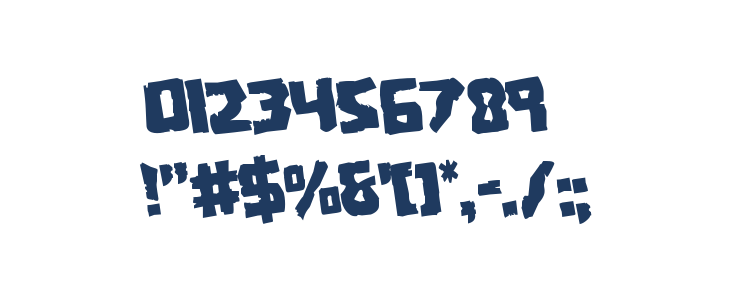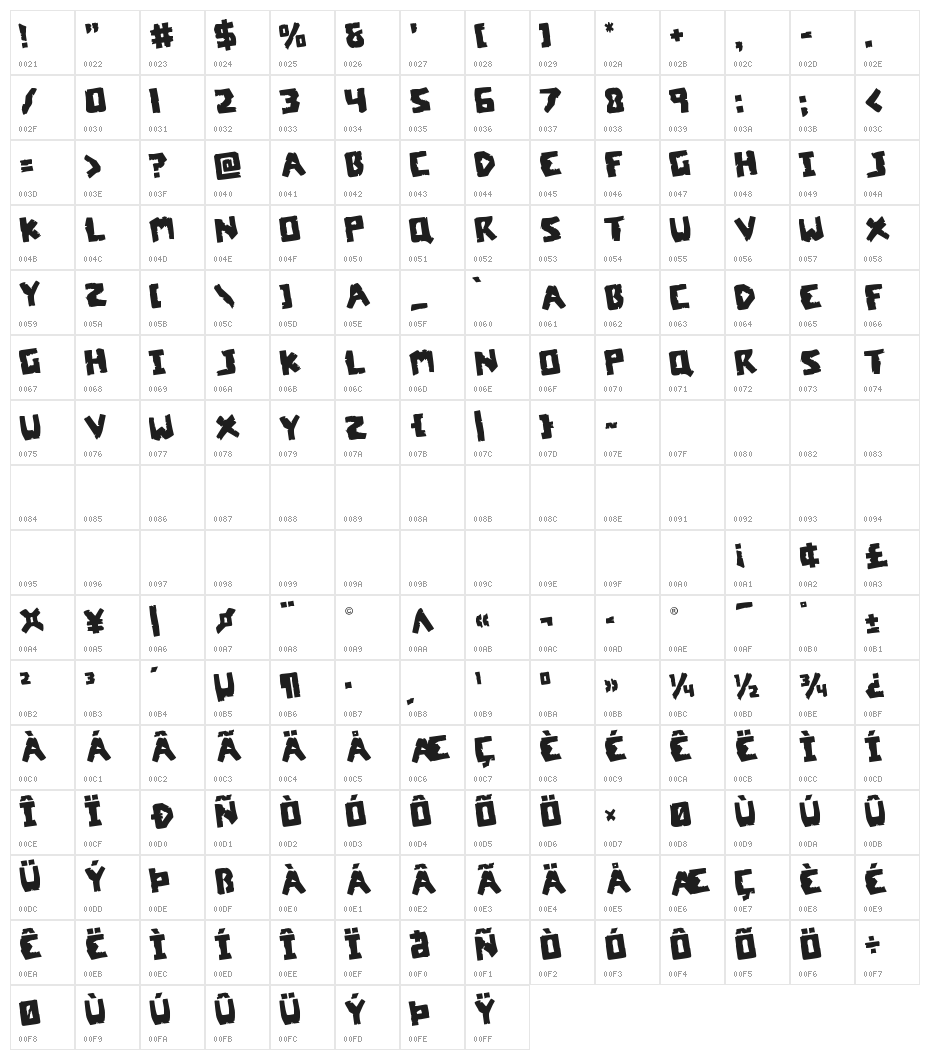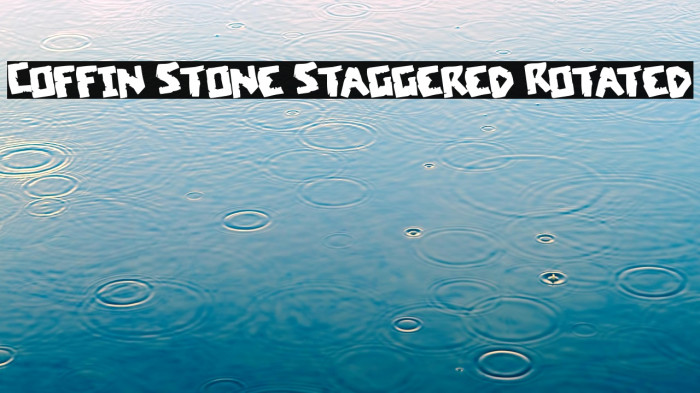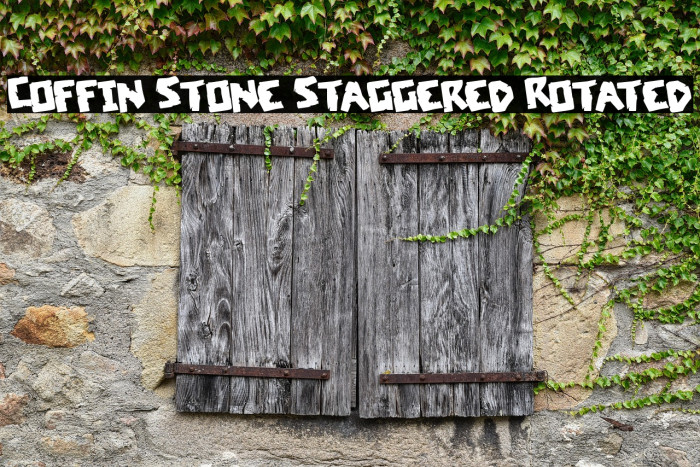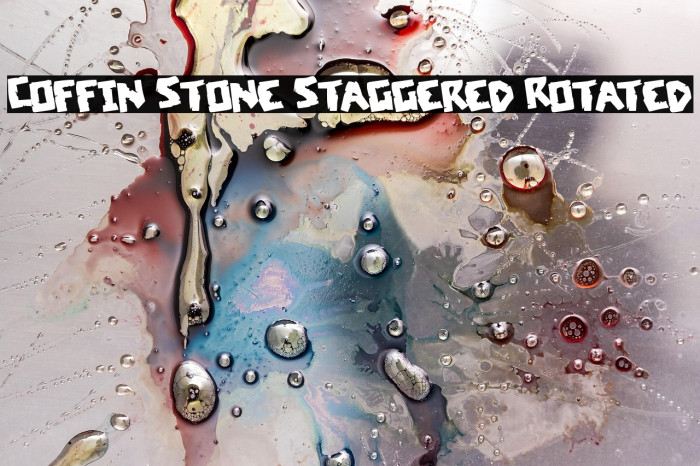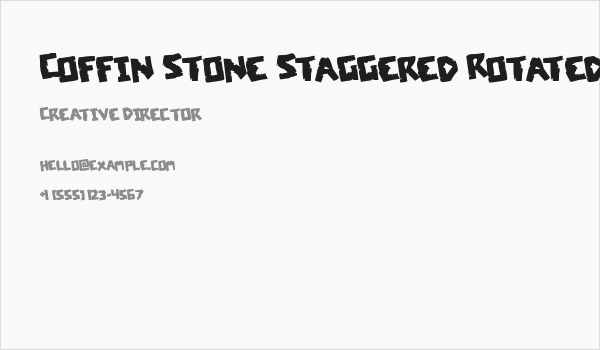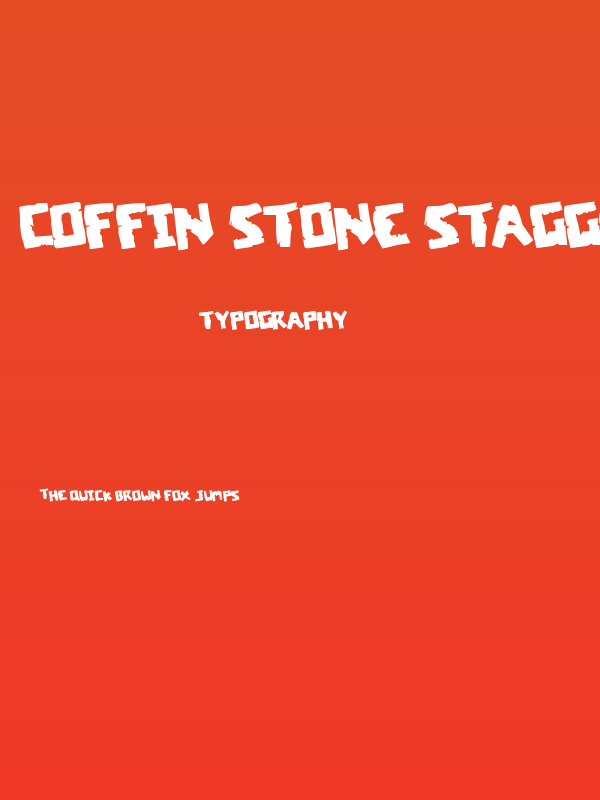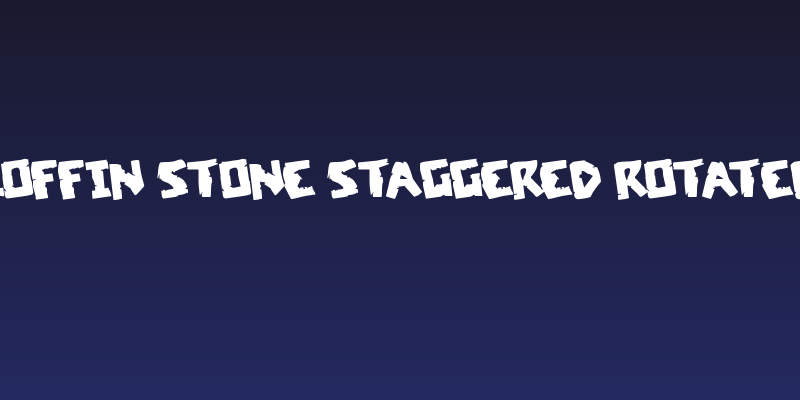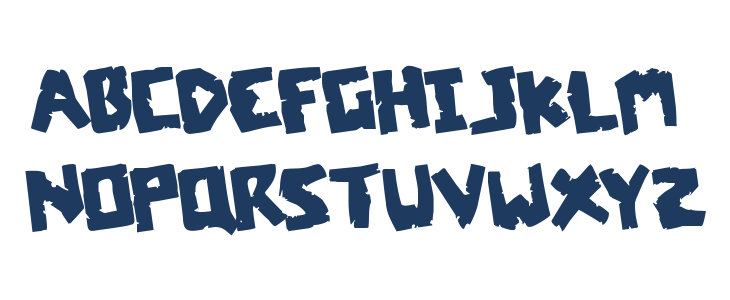
Coffin Stone Staggered Rotated Font
Coffin Stone Staggered Rotated Description
This font features a bold, rugged style with a distressed appearance, reminiscent of stone carvings or graffiti. The characters are staggered and rotated, giving an edgy and dynamic feel. The uppercase and lowercase letters maintain a consistent weight, with sharp angles and irregular edges that create a sense of movement and energy. The numerals and special characters follow the same aesthetic, ensuring a cohesive look across all text elements. This font is ideal for projects that require a bold statement or a gritty, urban vibe.
| Overall Style | Urban, Edgy, Dynamic |
| Proposed Projects | Perfect for album covers, street art designs, posters, and edgy branding projects. |